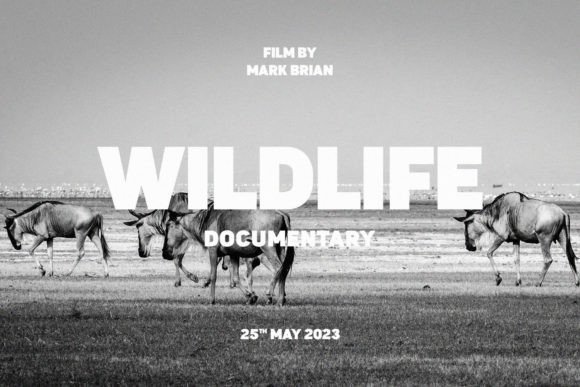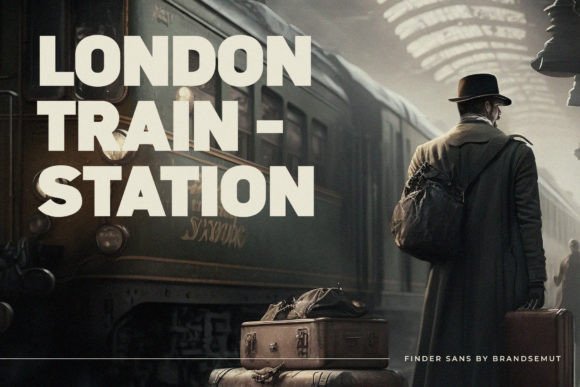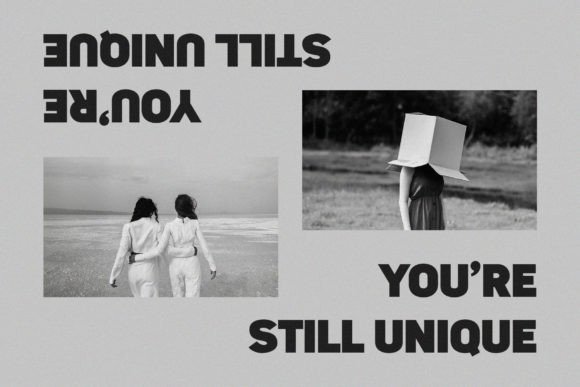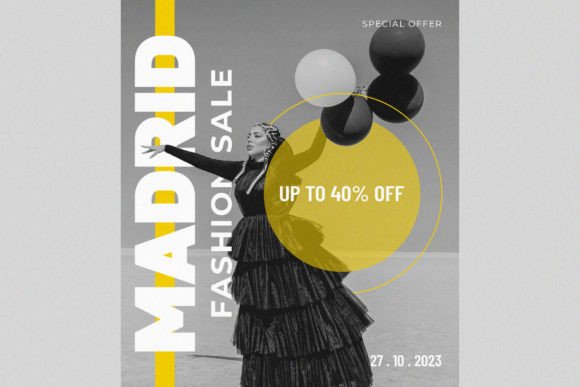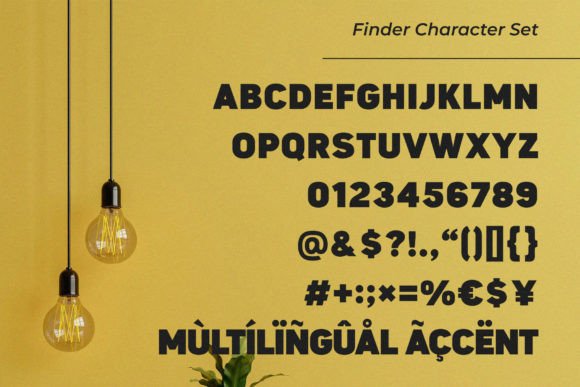
Introducing Finder Font: The Ultimate Sans Serif for Modern Designs
Are you on the hunt for a font that screams modernity and coolness? Look no further than Finder Font, a bold and daring sans serif font that’s perfect for designers and crafters looking to make a statement. In this article, we’ll dive into the world of Finder Font, exploring its features, uses, and benefits, and why it’s a must-have for any creative project.
What is Finder Font?
Finder Font is a sleek and contemporary sans serif font that’s designed to turn heads. Its clean lines, geometric shapes, and bold strokes make it a versatile font that’s perfect for a wide range of applications, from product packaging to t-shirt designs, headlines, posters, and more. Whether you’re a seasoned designer or a DIY crafter, Finder Font is an excellent choice for anyone looking to add a touch of modernity to their work.
Key Features of Finder Font
- Bold and Daring: Finder Font is not for the faint of heart. Its bold strokes and geometric shapes make it a font that demands attention.
- Modern and Sleek: With its clean lines and minimalist design, Finder Font is perfect for modern designs that require a touch of sophistication.
- Versatile: Finder Font is a versatile font that can be used for a wide range of applications, from digital designs to print materials.
- Easy to Read: Despite its bold nature, Finder Font is surprisingly easy to read, making it perfect for headlines, titles, and short paragraphs.
Uses of Finder Font
Finder Font is a font that’s designed to be used, and used often. Here are some of the many ways you can use Finder Font in your designs:
- Product Packaging: Add a touch of modernity to your product packaging with Finder Font. Its bold and daring nature makes it perfect for standing out on store shelves.
- T-Shirt Designs: Create eye-catching t-shirt designs with Finder Font. Its bold strokes and geometric shapes make it perfect for creating designs that pop.
- Headlines and Posters: Use Finder Font to create bold and attention-grabbing headlines and posters. Its modern and sleek design makes it perfect for advertising and promotional materials.
- Digital Designs: Finder Font is perfect for digital designs, including social media graphics, website headers, and more.
Benefits of Using Finder Font
So why should you use Finder Font in your designs? Here are just a few benefits of using this amazing font:
- Instant Recognition: Finder Font is a font that’s hard to ignore. Its bold and daring nature makes it perfect for grabbing attention and standing out.
- Modern and Fresh: Add a touch of modernity to your designs with Finder Font. Its sleek and contemporary design makes it perfect for creating fresh and exciting designs.
- Versatility: Finder Font is a versatile font that can be used for a wide range of applications, making it a great addition to any designer’s toolkit.
Tips for Using Finder Font
Here are a few tips for using Finder Font in your designs:
- Use it Boldly: Finder Font is a font that’s designed to be used boldly. Don’t be afraid to experiment with different sizes and colors.
- Pair it with Other Fonts: Finder Font pairs well with other fonts, including serif and script fonts. Experiment with different pairings to find the perfect combination for your design.
- Experiment with Colors: Finder Font looks great in a variety of colors, from bold and bright to subtle and muted. Experiment with different colors to find the perfect look for your design.
In conclusion, Finder Font is a cool and modern sans serif font that’s perfect for designers and crafters looking to make a statement. Its bold and daring nature, combined with its versatility and ease of use, make it a must-have for any creative project. Whether you’re designing product packaging, t-shirt designs, headlines, posters, or more, Finder Font is an excellent choice. So why wait? Download Finder Font today and start creating modern and exciting designs that turn heads!